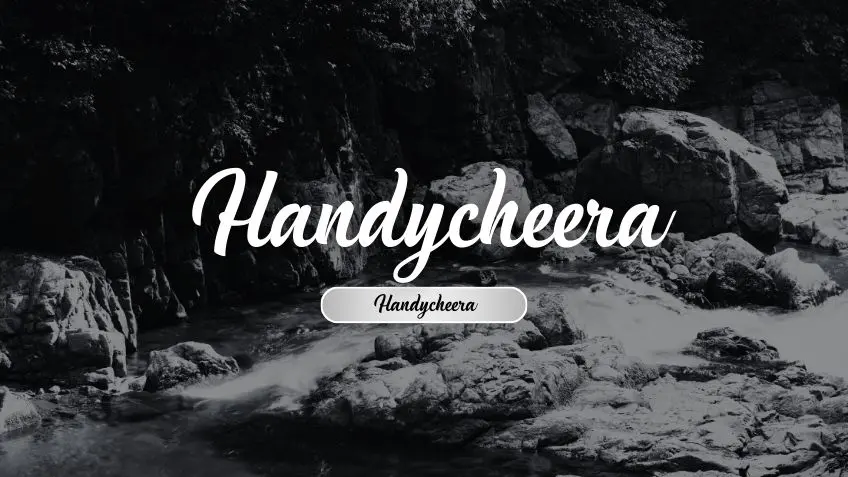
The font Handycheera Regular, designed by Situjuh Nazara, falls under the Script category & Handycheera font family. Its smooth, flowing letterforms make it a versatile choice for projects that require both elegance and readability. Handycheera is particularly well-suited for Headlines and Titles, Product Packaging, Social media and digital content, Branding and Logos, Embroidery and Craft Projects, Wedding and Event Stationery, Greeting cards, invitations and and posters. With its balance of simplicity and decorative appeal, this font brings a polished touch to both personal and professional designs.